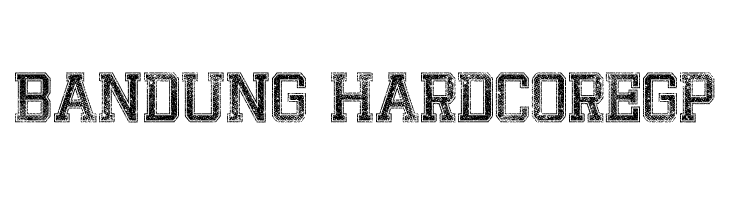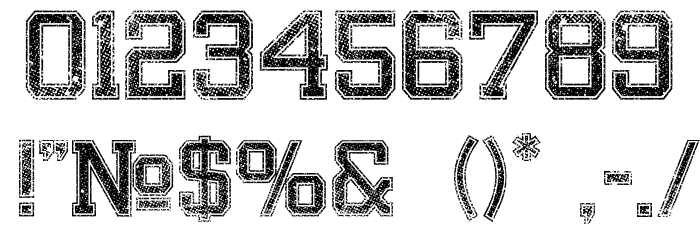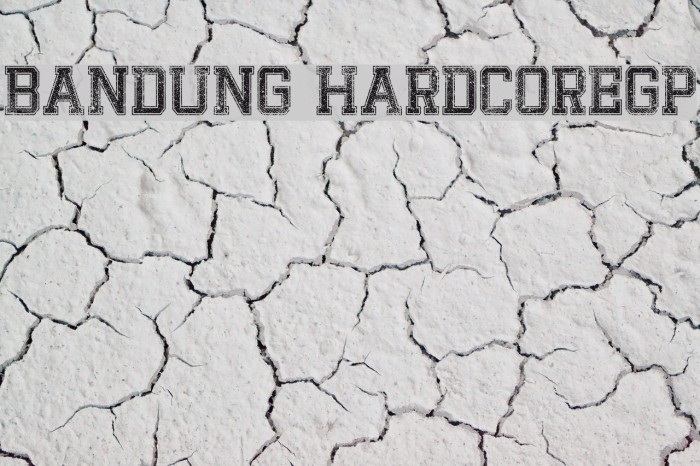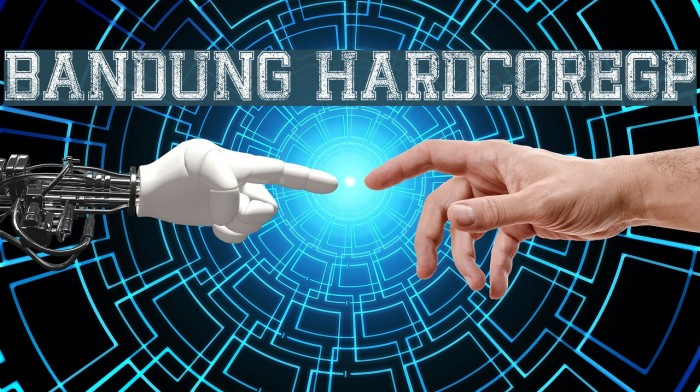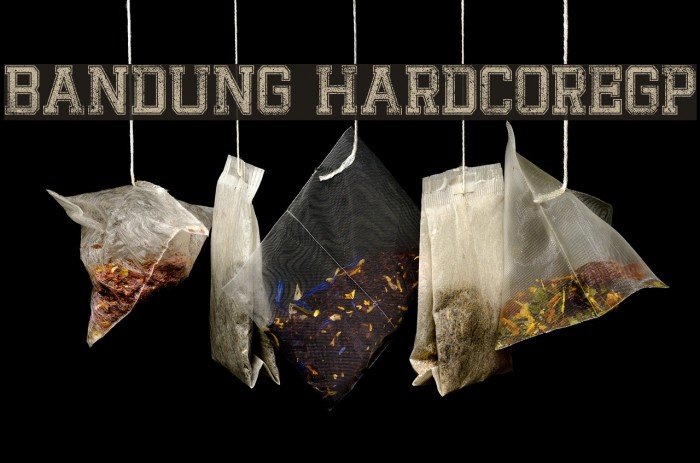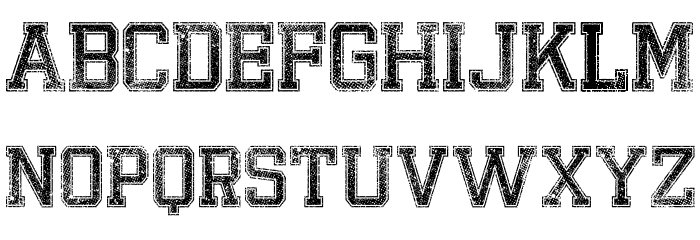
Bandung HardcoreGP Font
Bandung HardcoreGP Description
This font features a bold and rugged design with a distressed texture, giving it a gritty, hardcore appearance. The characters are outlined with a thick border, enhancing their boldness and making them stand out. The texture within the letters adds a vintage, worn-out feel, reminiscent of old-school posters or industrial signage. The uppercase letters are prominent and assertive, while the numbers and special characters maintain the same bold and textured style, ensuring consistency across all elements. This font's unique style makes it ideal for projects that require a strong, impactful visual statement.
| Overall Style | Vintage |
| Proposed Projects | Ideal for music posters, event flyers, merchandise branding, and any project needing a strong, gritty aesthetic. |